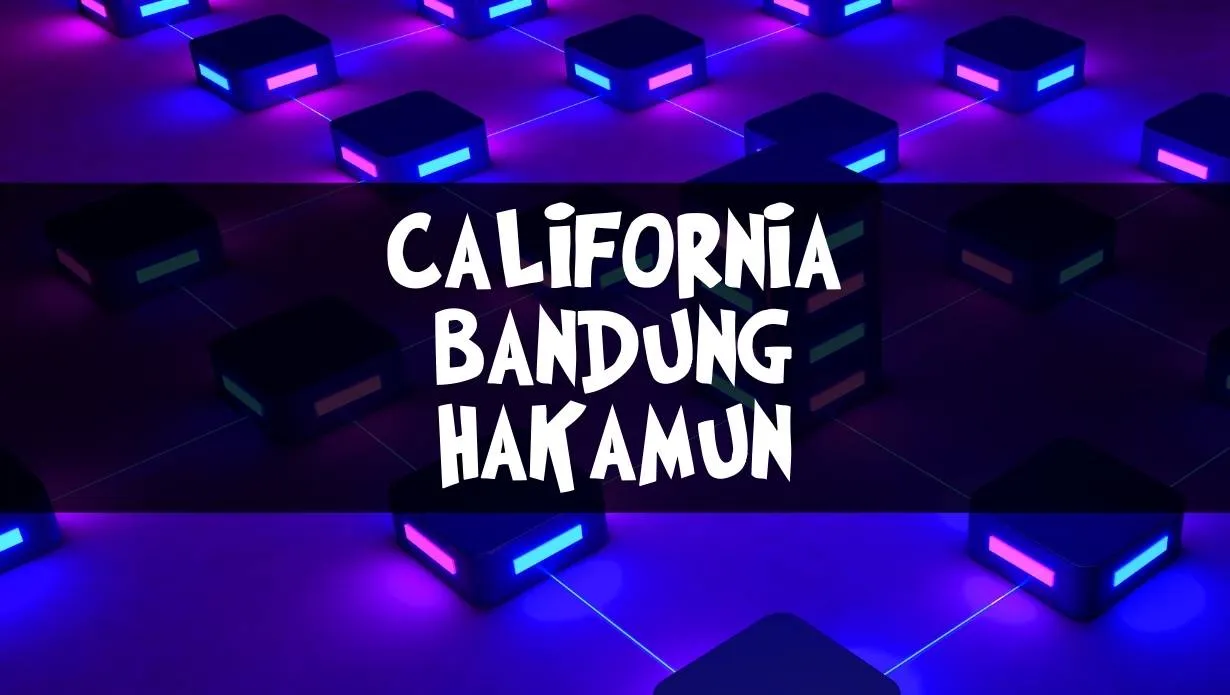
Lucy Font was born in London, England in 1756. Her father was a wealthy merchant and her mother was a member of the gentry. Lucy was educated at home by private tutors and had a passion for literature and the arts.
The lowercase letters are very rounded and the uppercase letters are more angular. This font is perfect for creating an elegant and sophisticated look. It is quite similar to the grobold Font and it has a pairing personality with that, so you can combine them and make something crazy stuff.